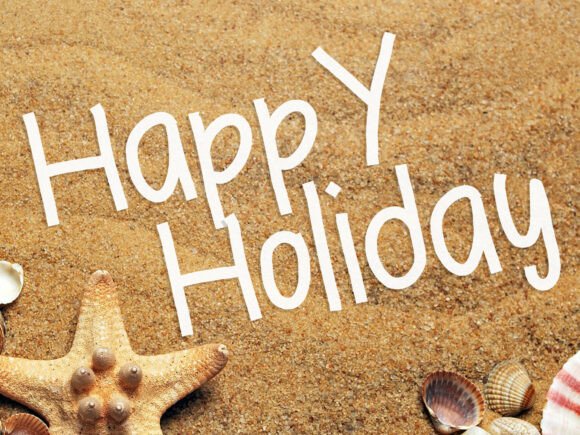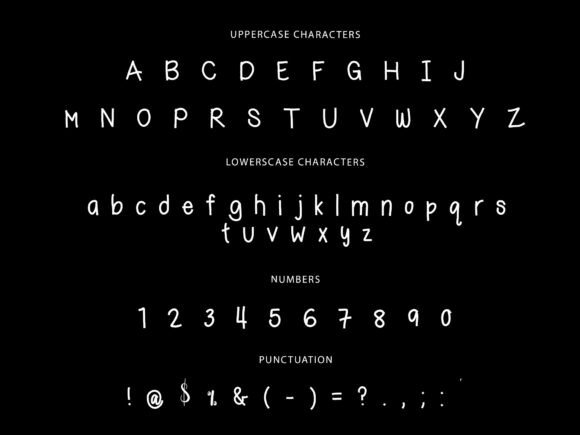
Introduction to Mistertico Font
Mistertico is a sleek and stylish display font with an elastic, ultra-thin form that delivers a whimsical, cartoon-inspired aesthetic.
Its dynamic letterforms combine elegance with playfulness, making it a standout choice for branding, posters, product packaging, childrenโs content, and bold headlines The fontโs expressive character adds a joyful and charismatic tone to any design, instantly creating visual appeal.
Key Features of Mistertico Font
Why Choose Mistertico Font?